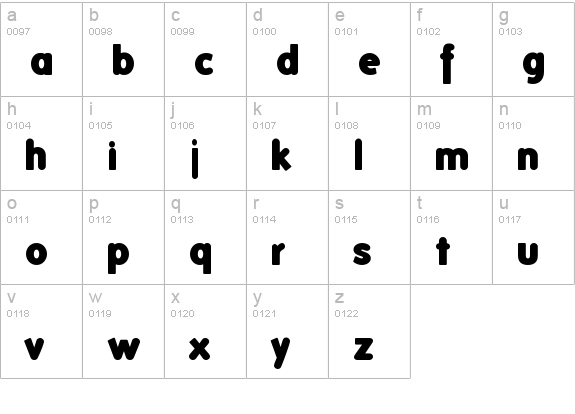
FolksBlack Font Details
FolksBlack font is a modern and stylish typeface that exudes sophistication and elegance. Its sleek lines and bold design make it perfect for a variety of design projects, from branding to editorial layouts. The font's versatility allows it to be used in both digital and print applications, making it a must-have for any designer looking to make a statement. What makes FolksBlack font even more appealing is that it is completely free to download at FontsMarket.com. This means that you can access this stunning typeface without having to spend a penny, making it a valuable addition to your font library. Don't miss out on the opportunity to enhance your designs with the striking beauty of FolksBlack font - download it today and unleash your creativity!